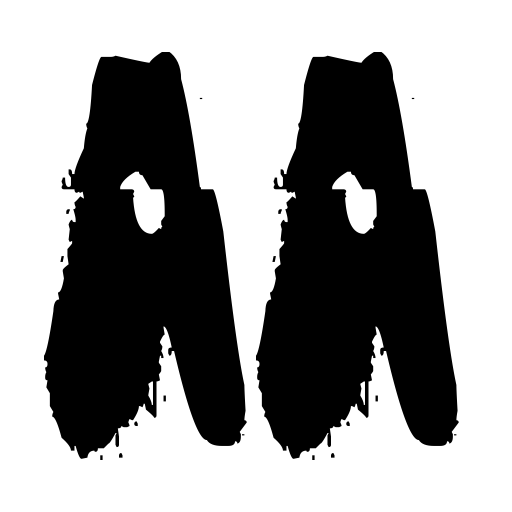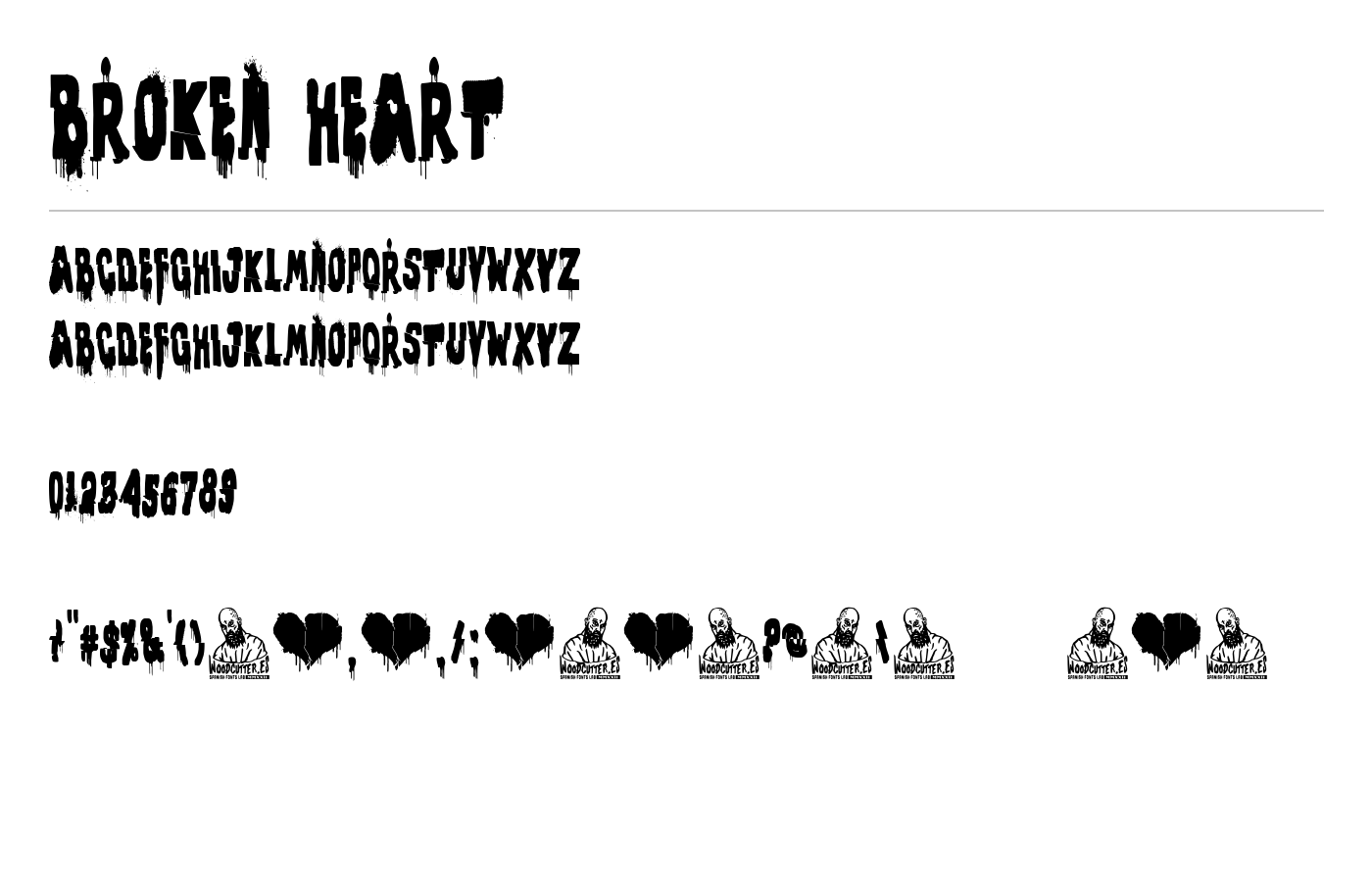
Broken Heart Font is an eye-catching, heavy display typeface with a grunge, dripping effect that gives it a raw and edgy personality. Its condensed, bold uppercase letters and rough texture make it perfect for creating striking headlines, posters, or designs with a rebellious or horror-inspired vibe. This font works well for brands and creative projects that want to convey intensity, mystery, or a dark, artistic mood.
Broken Heart Font
About Broken Heart Font